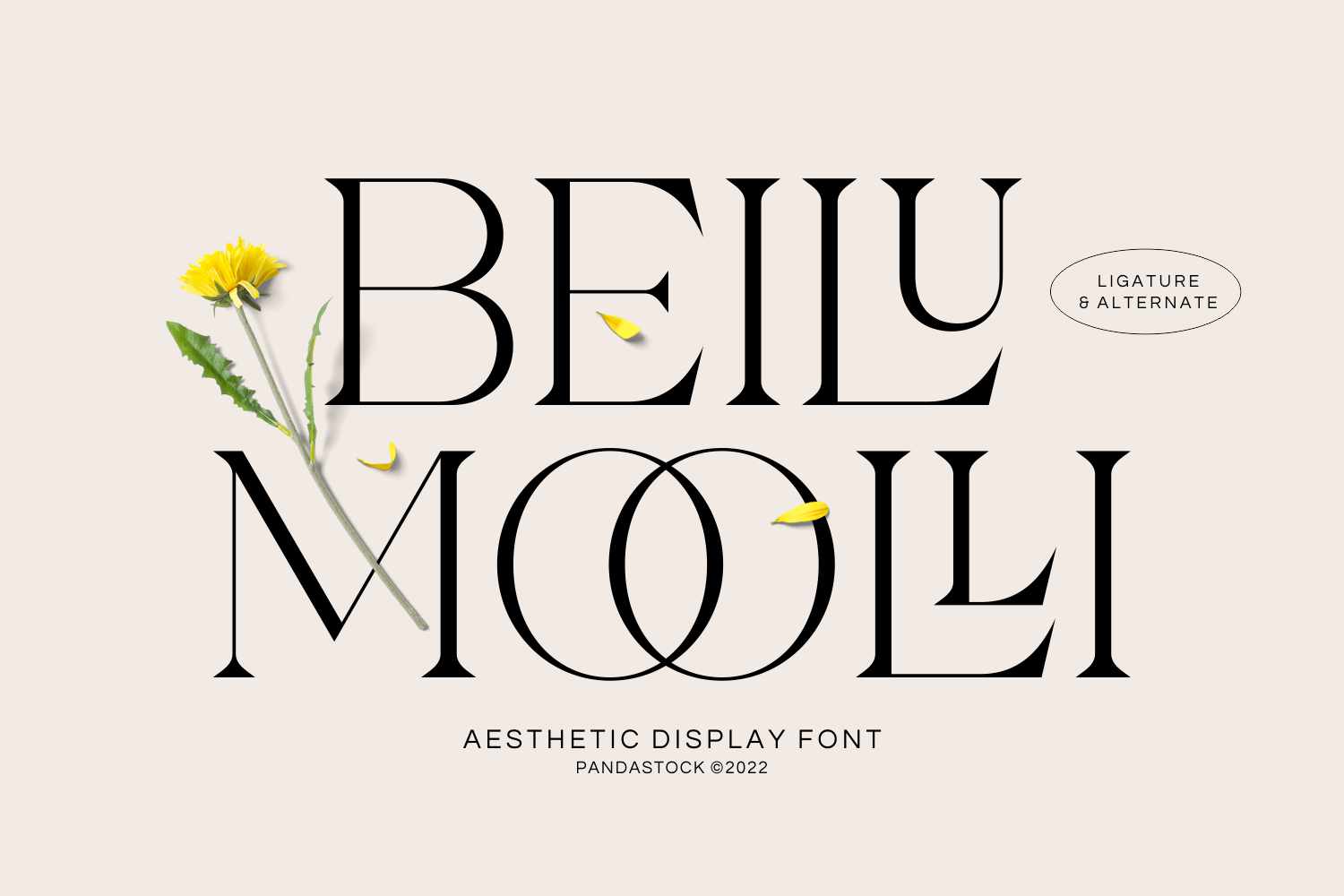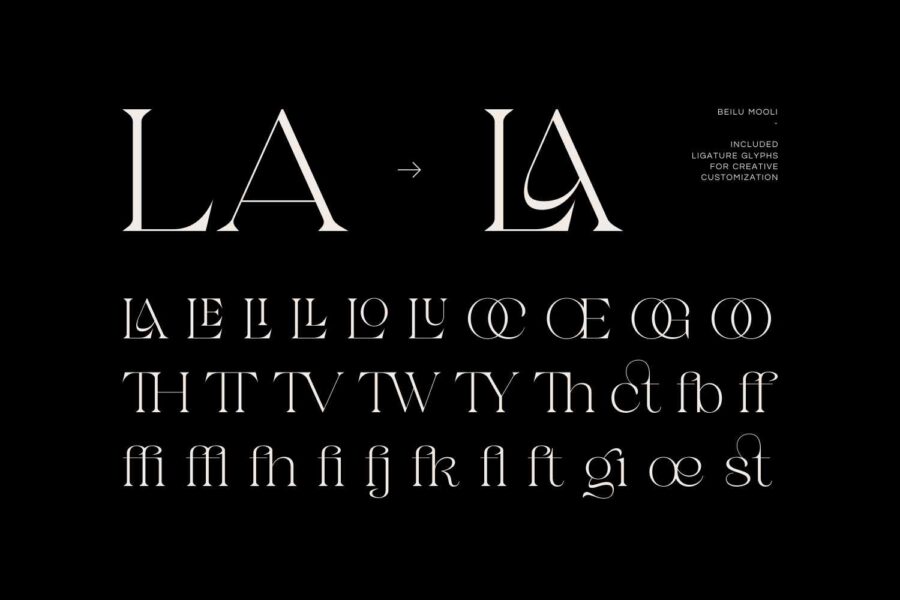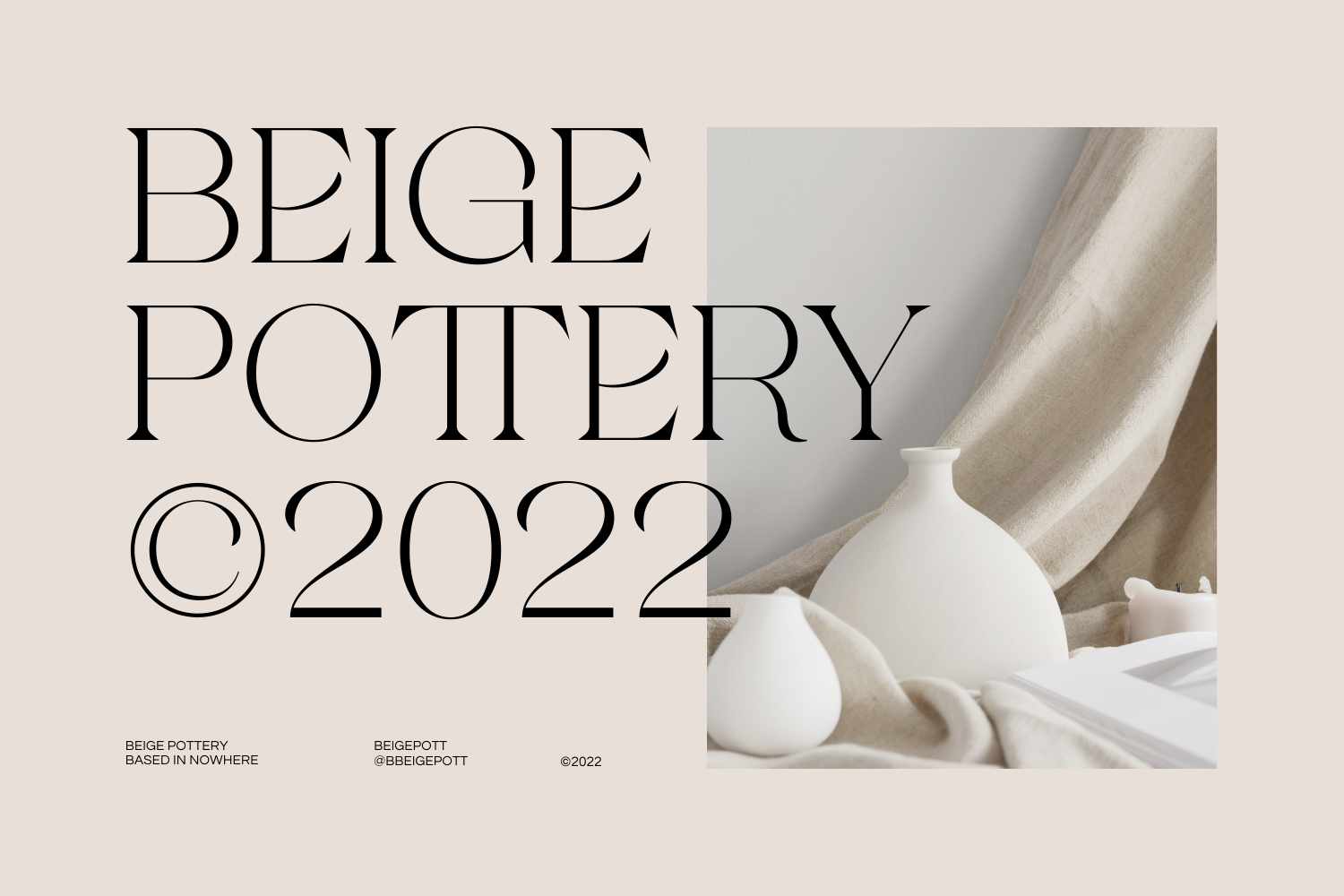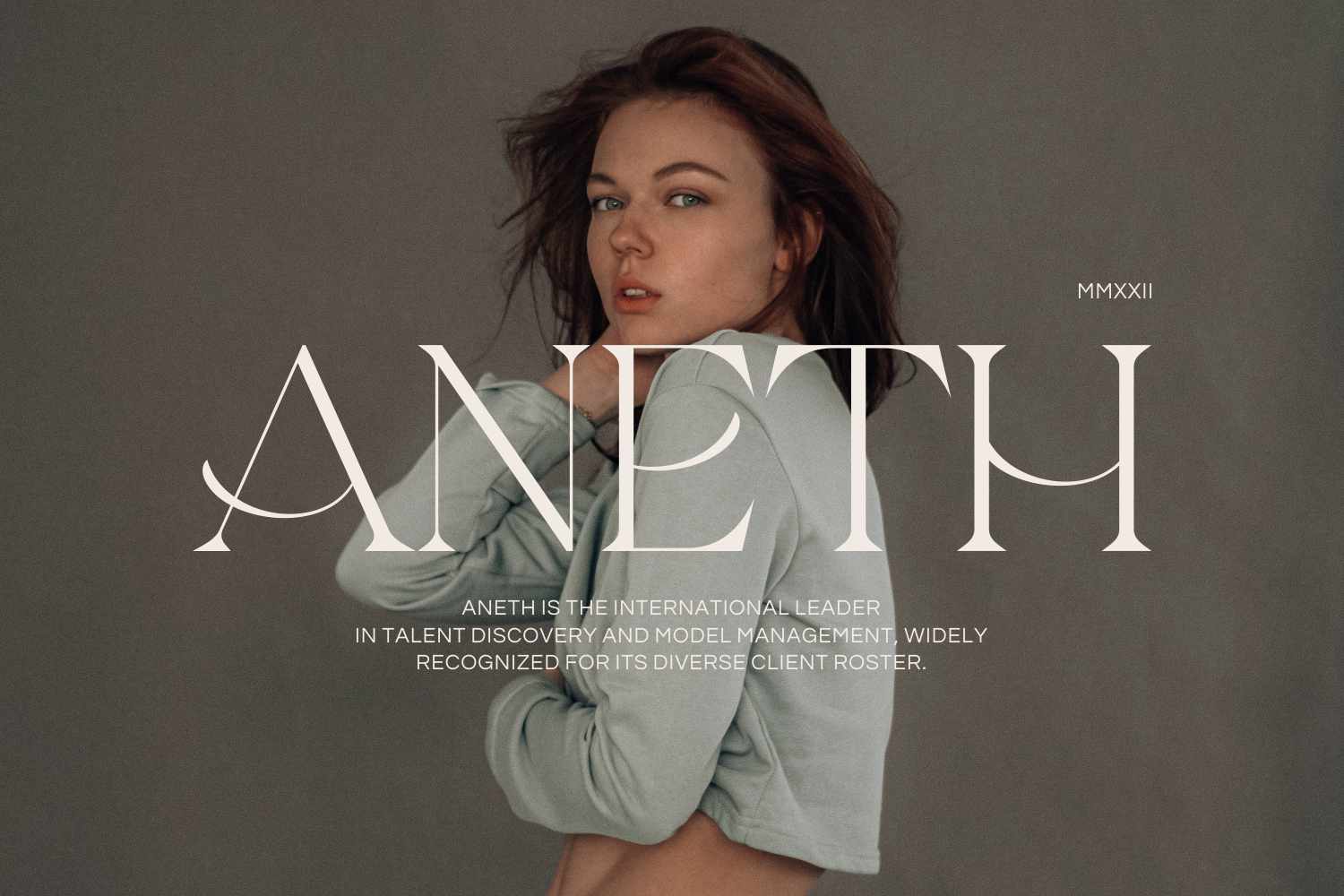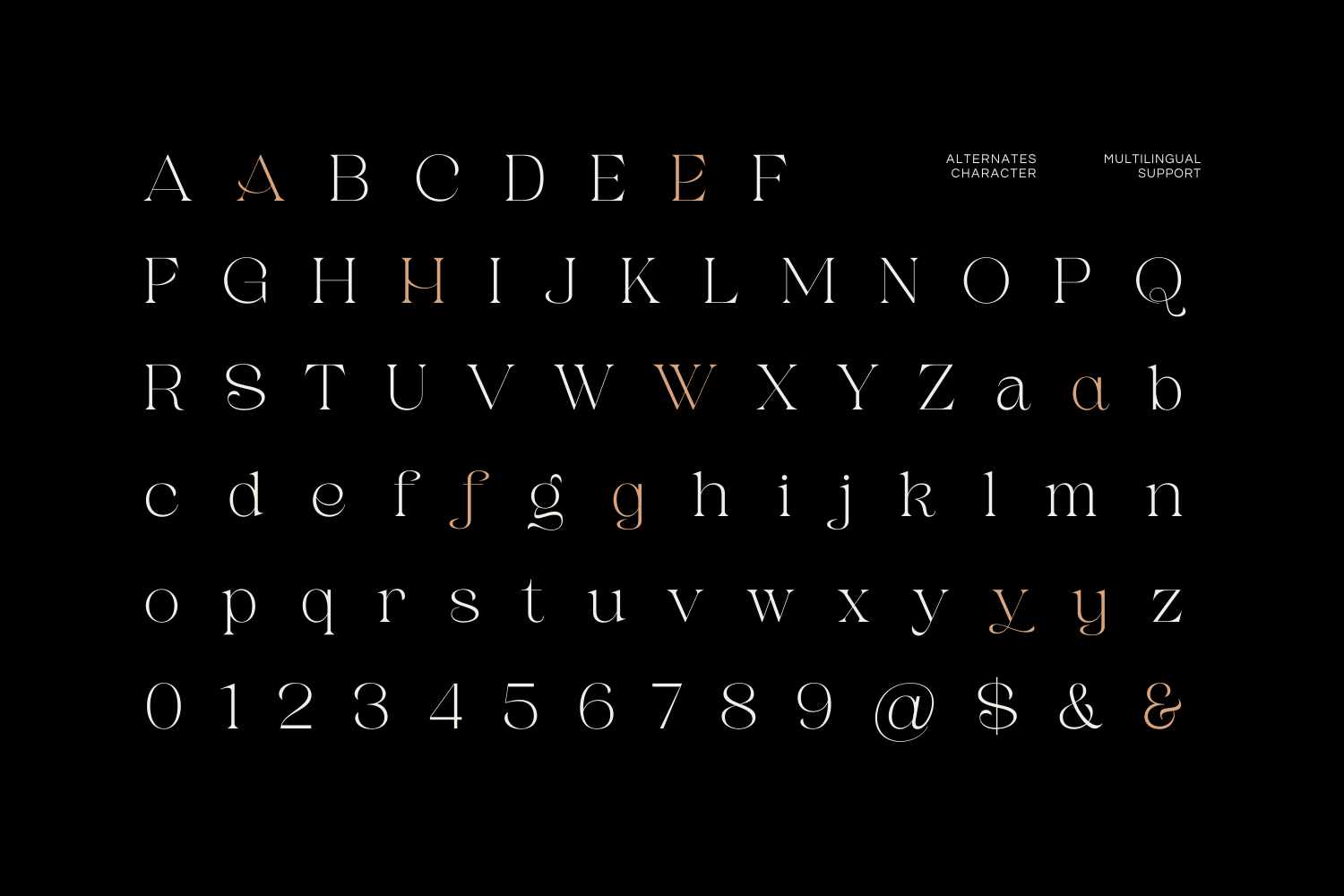
Beilu Mooli
Beilu Mooli is an aesthetic serif display font designed with elegance and modern sophistication. Its high-contrast strokes, sharp serifs, and refined details give it a luxurious appearance, while its stylish ligatures and alternates bring creative versatility. Perfect for branding, editorials, fashion magazines, packaging, and upscale logos, Beilu Mooli creates a polished and timeless impression that elevates any design.
With a complete character set, multilingual support, and unique ligature combinations, Beilu Mooli offers designers the flexibility to craft standout typography. Whether you’re working on elegant invitations, artistic posters, or premium product labels, this font ensures every project feels distinctive and visually captivating.